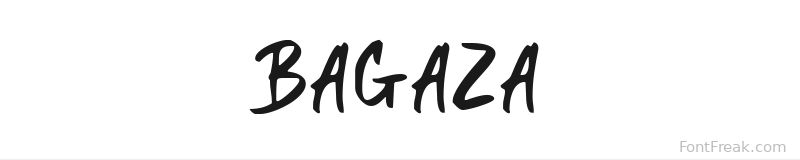
BAGAZA
BAGAZA is a distinctive display font designed by MJType, perfect for those looking to add a touch of personality to their projects. This font showcases a playful yet elegant style that makes it suitable for a variety of creative applications. With its bold strokes and unique character shapes, BAGAZA captures attention while maintaining readability, making it an excellent choice for both print and digital media.
Visually, BAGAZA features a moderate stroke weight that balances boldness with finesse. The letters display a slight contrast, ensuring that each character stands out without overwhelming the viewer. The spacing between characters is thoughtfully designed, allowing for clear legibility even at smaller sizes. Its decorative elements, including whimsical curves and rounded edges, lend a friendly and approachable vibe, making it an ideal choice for informal or artistic uses.
Best suited for wedding invitations, trendy restaurant menus, vibrant event posters, and eye-catching social media graphics, BAGAZA can elevate any design project. Its unique style appeals to graphic designers seeking to inject creativity into their work, as well as small business owners aiming to create memorable branding. Content creators will also find this font invaluable for crafting engaging visuals that resonate with their audience.
What sets BAGAZA apart is its ability to blend sophistication with a casual flair. This font stands out in a crowded marketplace, offering a refreshing alternative to more conventional typefaces. Whether you are looking to make a bold statement or simply add a touch of elegance to your designs, BAGAZA font free download is a fantastic resource that can enhance your creative toolkit and inspire new ideas. Embrace the potential of BAGAZA and let your projects shine.